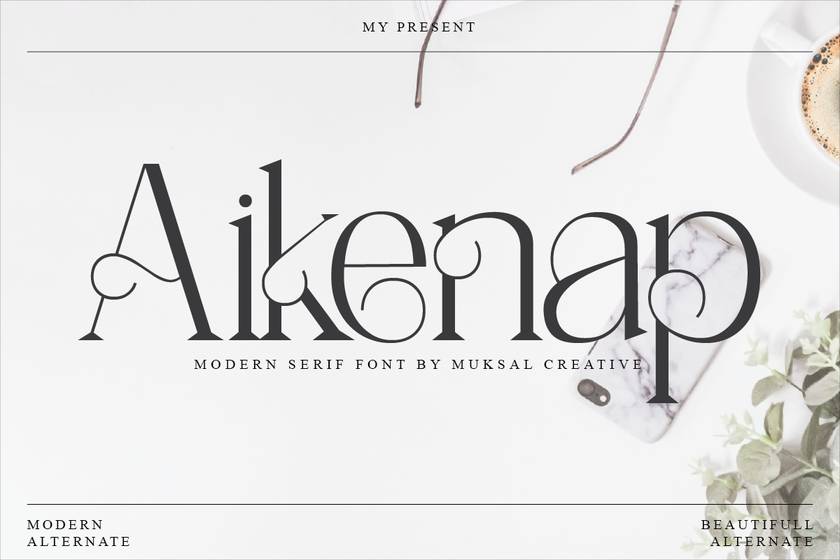
Aikenap is a slender, elegant serif font with a high contrast between thin and thick strokes, showcasing delicate, sharp terminals and refined bracketed serifs. Its tall x-height and distinctive letterforms, such as the double-story 'g' and uniquely curved 'Q' tail, give it a sophisticated, modern yet timeless appeal, ideal for luxury branding, editorial headlines, and stylish logos. This font’s graceful lines and airy spacing make it perfect for designs seeking a chic and polished look.
Aikenap Font
About Aikenap Font
| Font family | Aikenap Font |
| Designer | Muksal Creative |